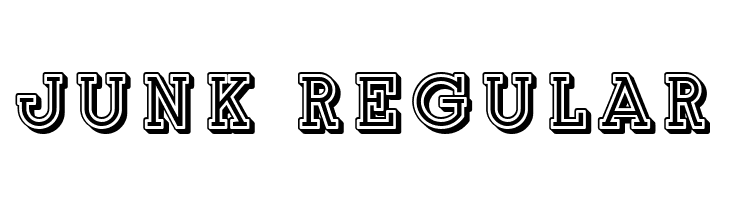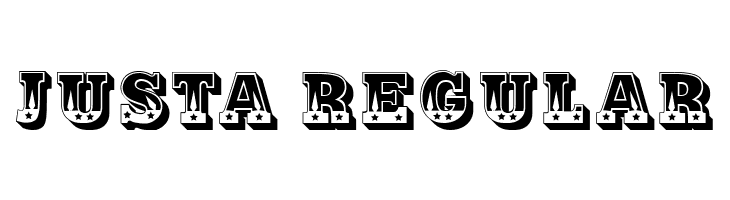
A bold, decorative font with geometric shapes and intricate patterns.
A bold, geometric font with a playful, three-dimensional outline.
Ornamental icon font featuring stylized religious female portraits.
A bold, decorative font with a double border and three-dimensional effect.
( Vladimir Nikolic - www.coroflot.com/vladimirnikolic )
A bold, italicized font with a gradient effect and solid outlines.
( Vladimir Nikolic - www.coroflot.com/vladimirnikolic )
A bold, gradient-effect font with a three-dimensional appearance.
( Vladimir Nikolic - www.coroflot.com/vladimirnikolic )
A bold, italicized font with a three-dimensional outlined style.
( Vladimir Nikolic - www.coroflot.com/vladimirnikolic )
A bold, geometric font with a three-dimensional effect and strong visual impact.
A bold, decorative font with star-shaped cutouts and thick outlines.
( Vladimir Fedotov )
A playful, whimsical handwritten font with tall, narrow letterforms.